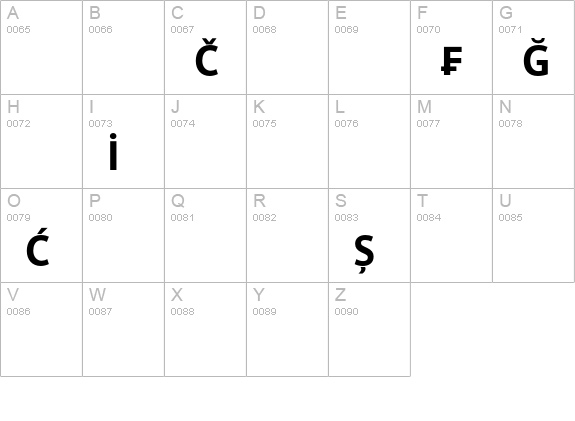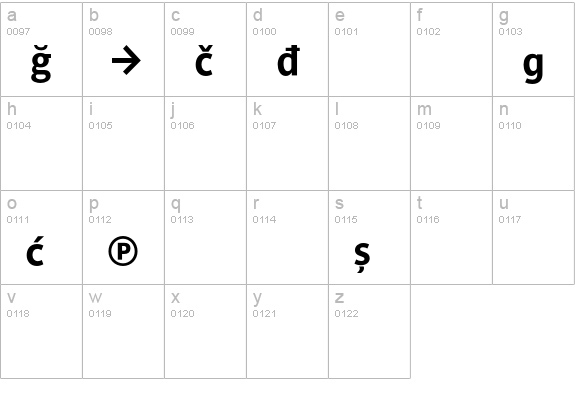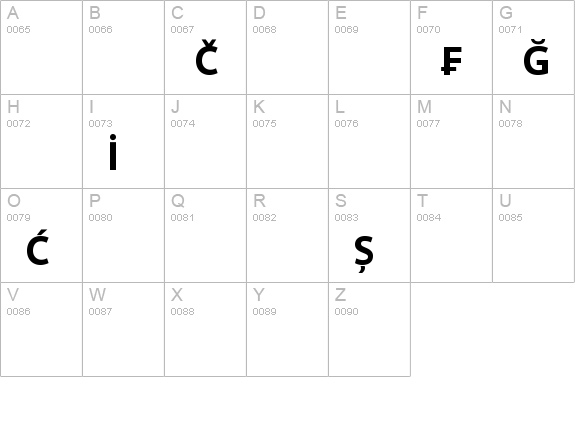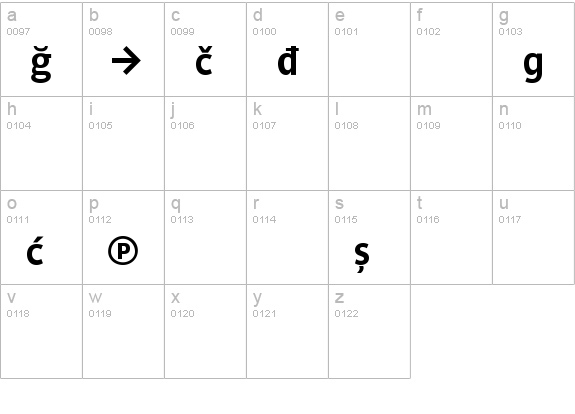
Parisine-BoldAlternate Font Details
Parisine-BoldAlternate font is a stunning display typeface that exudes elegance and sophistication. Its bold and alternate characters make it perfect for creating eye-catching headlines, logos, and branding materials. With its unique letterforms and distinctive curves, Parisine-BoldAlternate font adds a touch of modernity and style to any design project. Whether used in print or digital media, this font is sure to make a lasting impression. What sets Parisine-BoldAlternate font apart is that it is not only visually striking but also freely available to download. You can easily access this font at FontsMarket.com, where you can explore a vast library of high-quality fonts for all your design needs. Designed with versatility in mind, Parisine-BoldAlternate font can be used in various design applications, from advertising and packaging to web design and social media graphics. Its clean and legible characters ensure readability even at smaller sizes, making it suitable for body text as well. This font's bold weight adds a sense of strength and impact to your designs, making it ideal for creating attention-grabbing headlines and titles. Its alternate characters provide creative options and allow for personalized and unique typographic compositions. Whether you're a professional designer or an aspiring creative, Parisine-BoldAlternate font offers endless possibilities for expressing your artistic vision. Its sleek and modern design, coupled with its availability for free download at FontsMarket.com, makes it a must-have addition to your font collection. Download Parisine-BoldAlternate font today and elevate your designs with its timeless beauty and versatility. Experience the freedom to create visually stunning and impactful designs with this remarkable font.